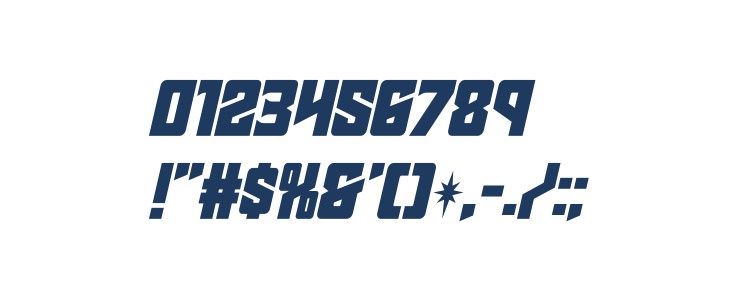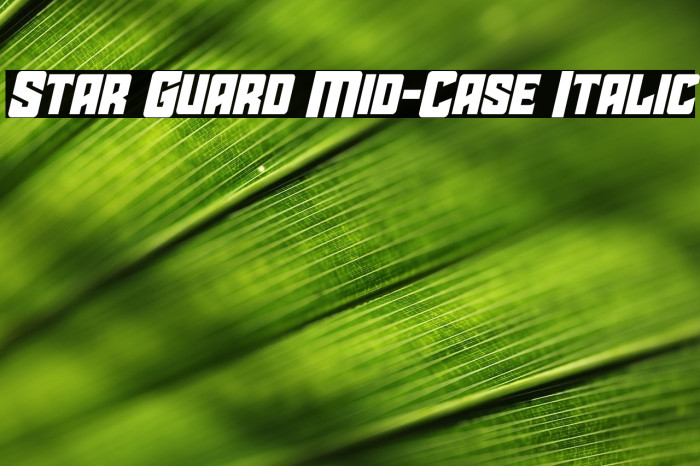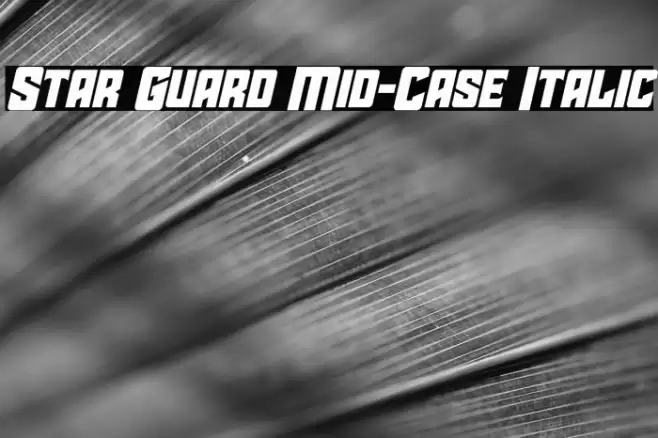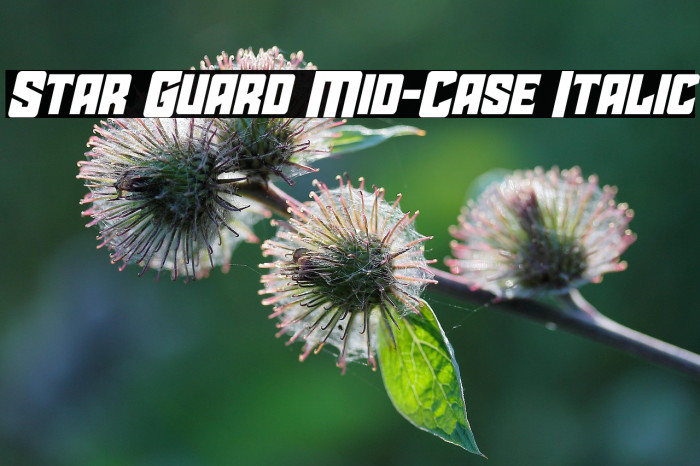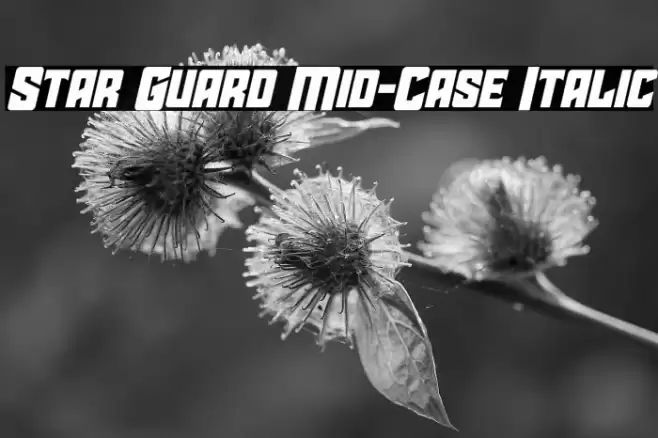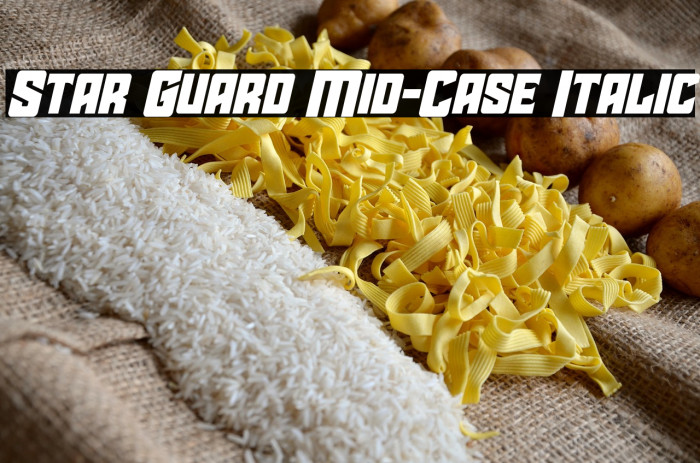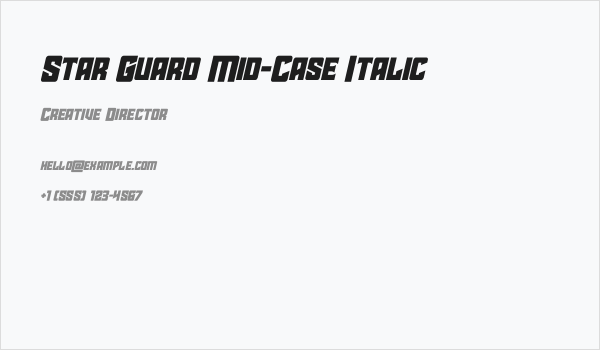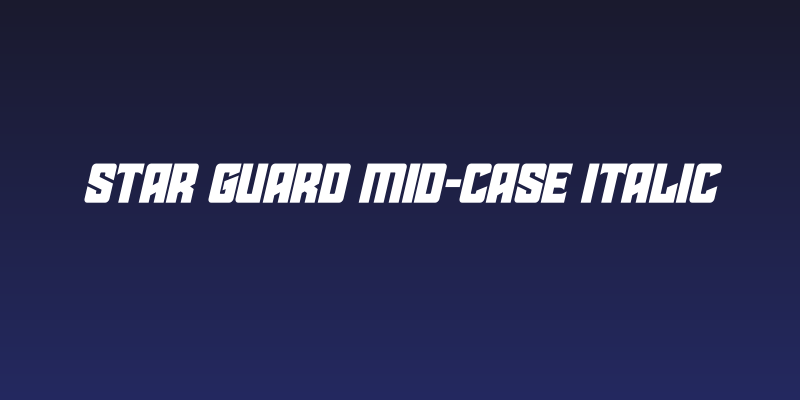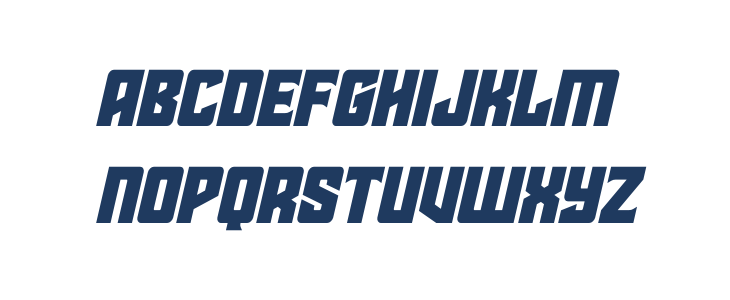
Star Guard Mid-Case Italic Font
Star Guard Mid-Case Italic Description
This font features a bold, dynamic style with a strong italic slant, giving it a sense of motion and energy. The characters are blocky and angular, with sharp edges and a futuristic feel. The uppercase and lowercase letters maintain a consistent weight, contributing to a cohesive look. The numbers and special characters are designed to match the boldness and angularity of the alphabet, ensuring uniformity across all glyphs. This font's unique style makes it stand out, ideal for projects that require a modern and impactful visual presence.
| Proposed Projects | Ideal for sports branding, video game titles, sci-fi movie posters, and dynamic logo designs. |